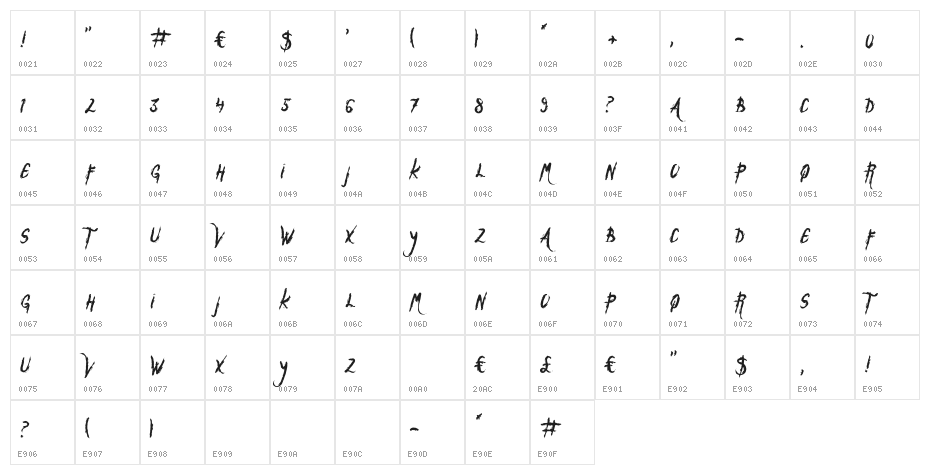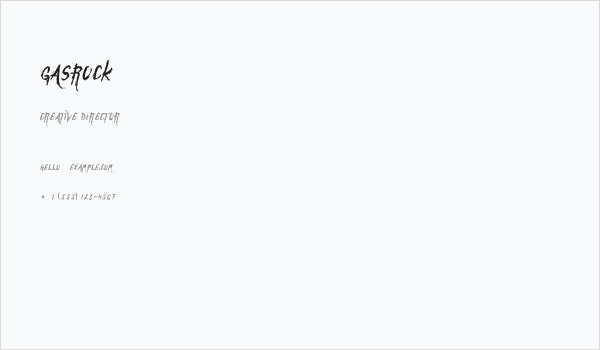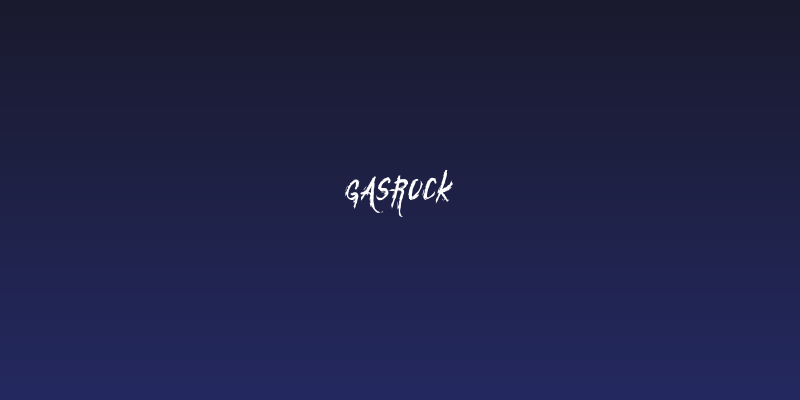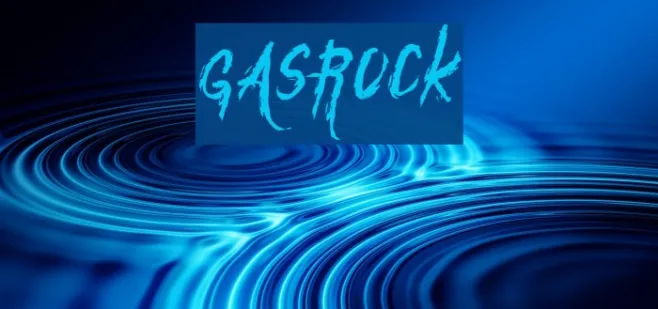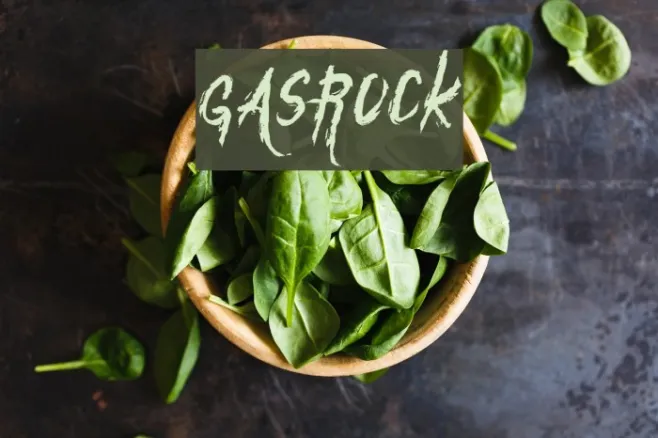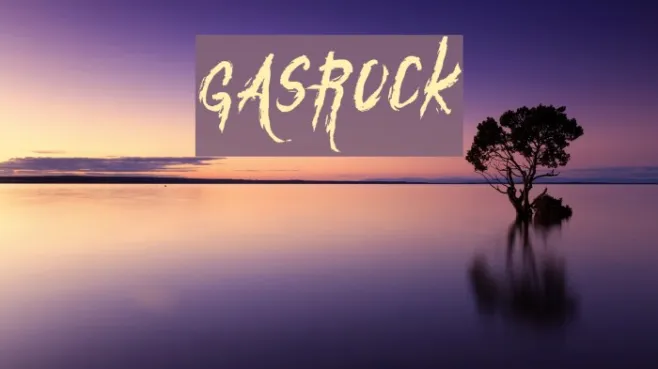
Gasrock Font
Gasrock Description
This font features a bold and dynamic brush style with a distressed, grunge appearance. The characters are crafted with irregular strokes, giving them an edgy and raw look. The uppercase and lowercase letters maintain a consistent style, with sharp edges and varying thickness that add to the font's dramatic flair. The numbers and special characters follow the same aesthetic, ensuring a cohesive look across all text elements. This font is perfect for projects that require a strong, impactful visual presence, such as music album covers, posters, or branding for edgy and modern brands.
| Overall Style | Modern, Edgy |
| Proposed Projects | Ideal for music album covers, edgy posters, and modern brand logos. |